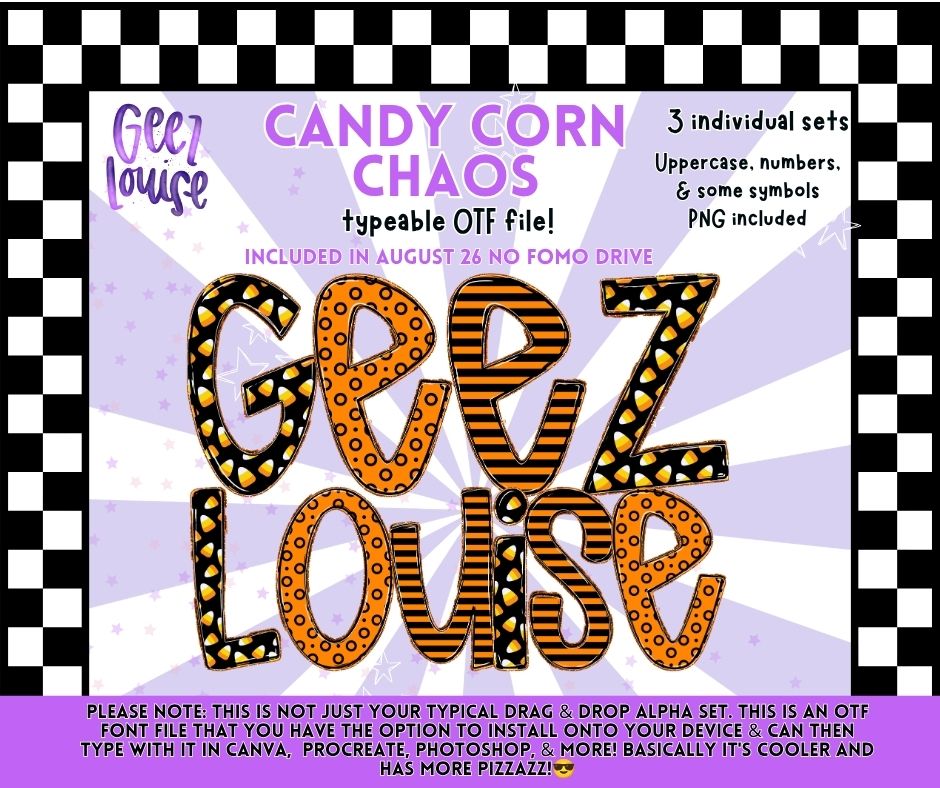
Candy Corn Chaos OTF Font & PNG Alpha Set | Halloween Alphabet
A fun Halloween alpha set packed with candy corn, stripes, dots, and spooky-season color! 🎃🍬
- Uppercase letters, numbers & some symbols